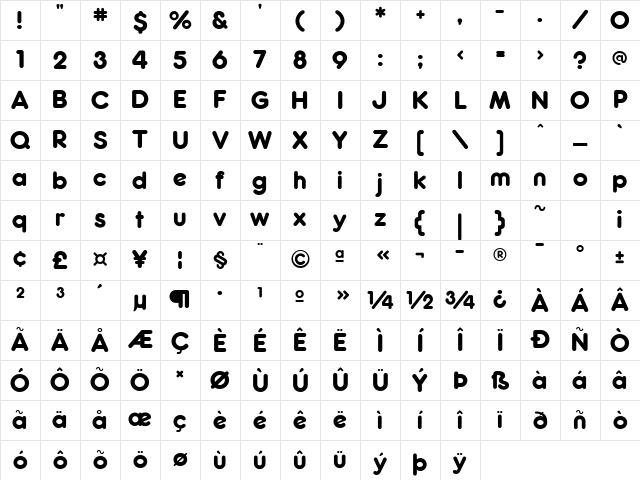
RockoUltraFLF Regular
Design Context for RockoUltraFLF
RockoUltraFLF is a composed and adaptable typeface that performs quietly and consistently across a wide range of design contexts.